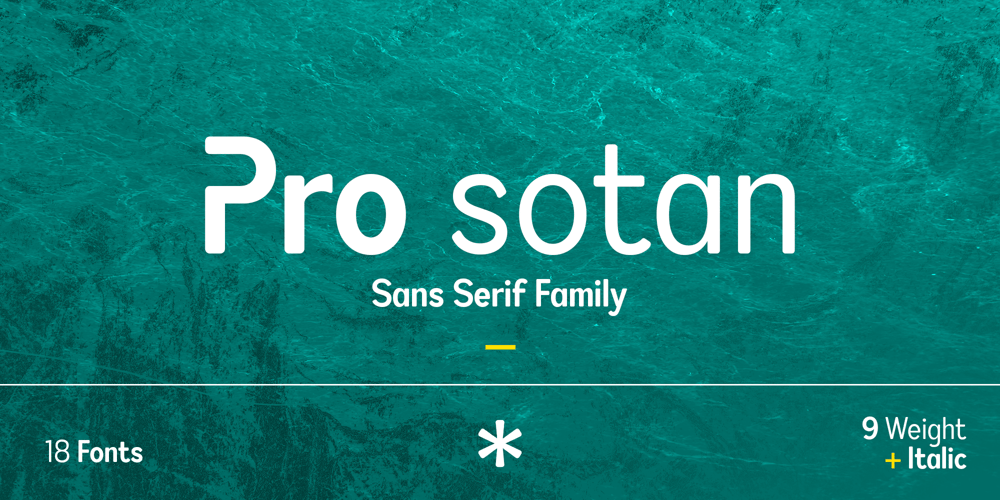
Pro Sotan Font Family was designed by Sidik Sidik and published by Differentialtype. Pro Sotan contains 18 styles and family package options. Pro sotan is a rounded sans serif font family that comes with 9 weights and matching italics. This font is ideal for typing in documents, headlines, packaging, logos, advertisements, corporate identities and much more.